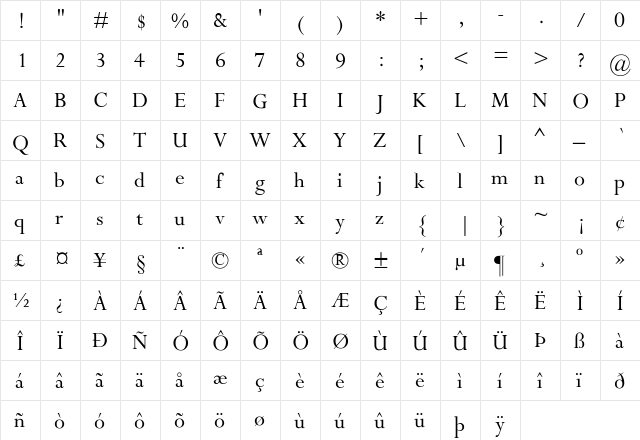
Quail Regular Font Preview
Quail Regular
Design Context for Quail Typeface
Quail offers clean, dependable letterforms without strong stylistic allegiance, making it a practical choice for designers who need flexibility.
Pro Tip: Use Quail in both headline and body roles to test its range before committing to a single application.